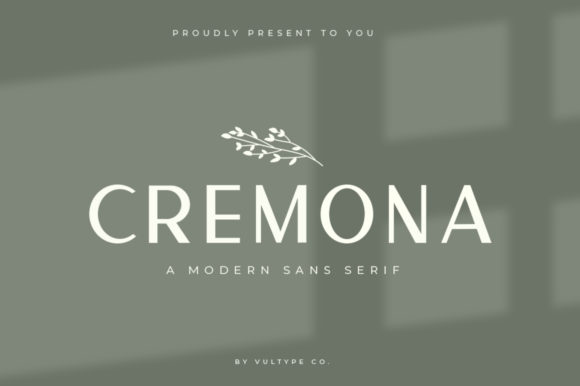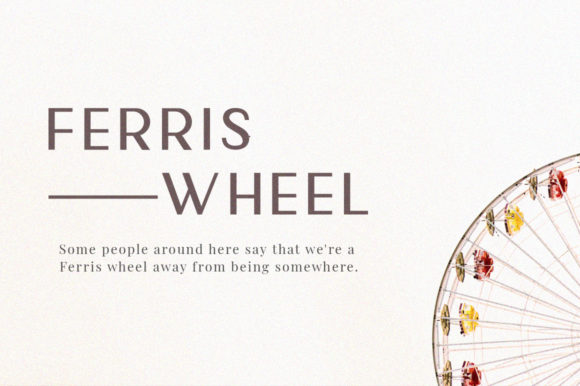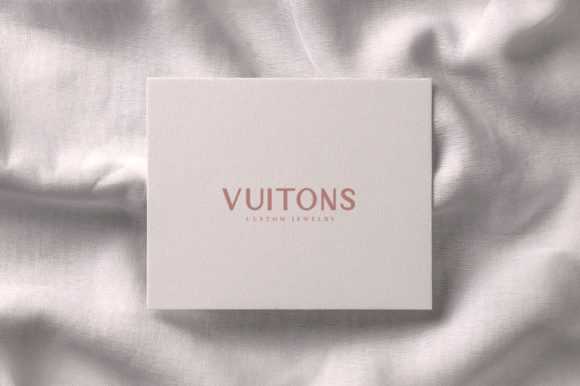
Cremona Font: Minimalist Sans Serif for Modern Logo Design
About the Cremona Font
Unleash your creativity with Cremona Font, a versatile font perfect for a wide range of applications. Cremona is a clean and minimal sans serif font coming in 2 weights (Regular & Bold). It’s the ideal font for adding romance & charm to your next design projects!
Cremona’s clean lines and minimalist approach make it particularly well-suited for headlines, logos, and short-form text in branding materials and posters. Its elegance shines in packaging design for high-end products or sophisticated events. However, its limited weight range and minimal x-height make it less effective for body text or lengthy paragraphs, as readability suffers. Avoid using it in UI contexts requiring extensive text.
To complement Cremona’s refined aesthetic, consider pairing it with a warmer serif like Garamond for body copy or a geometric sans-serif like Futura for a more modern contrast. For a touch of playful sophistication, a script font such as Allura could be used sparingly as an accent.
Cremona projects an overall feeling of understated elegance and modern simplicity. It’s a versatile choice for brands aiming for a clean, sophisticated image, but lacks the versatility for projects needing strong visual impact or extensive textual content.